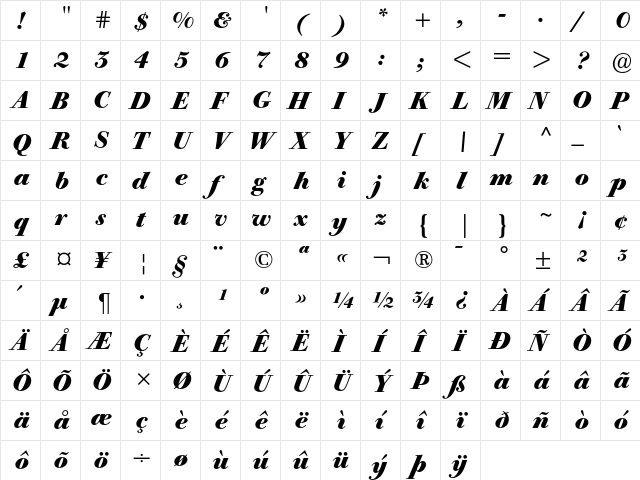
Bodoni Old Face BE Bold Italic Font Preview
Design Context for Bodoni Old Face BE Typeface
Bodoni Old Face BE takes a measured approach to typography — its balanced proportions and neutral character make it a reliable workhorse for both digital and print work. The dynamic lean of this cut emphasises speed and emphasis in any layout. Its bold stroke weight gives it real presence on the page.
Pro Tip: Try Bodoni Old Face BE for annotation and caption copy alongside an upright companion — the contrast in angle creates a dynamic but ordered typographic system.